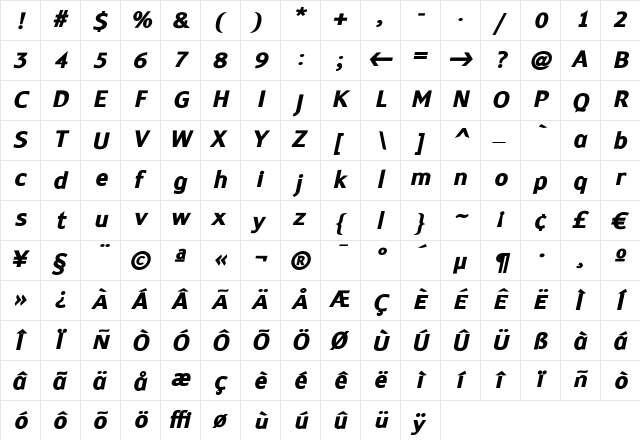
Monem ExtraBold Italic
Design Context for Monem ExtraBold Typeface
Monem ExtraBold takes a measured approach to typography — its balanced proportions and neutral character make it a reliable workhorse for both digital and print work. Its italic angle brings a sense of urgency and motion to the letterforms. The heavy weight commands attention and anchors typographic hierarchies.
Pro Tip: Try Monem ExtraBold for annotation and caption copy alongside an upright companion — the contrast in angle creates a dynamic but ordered typographic system.